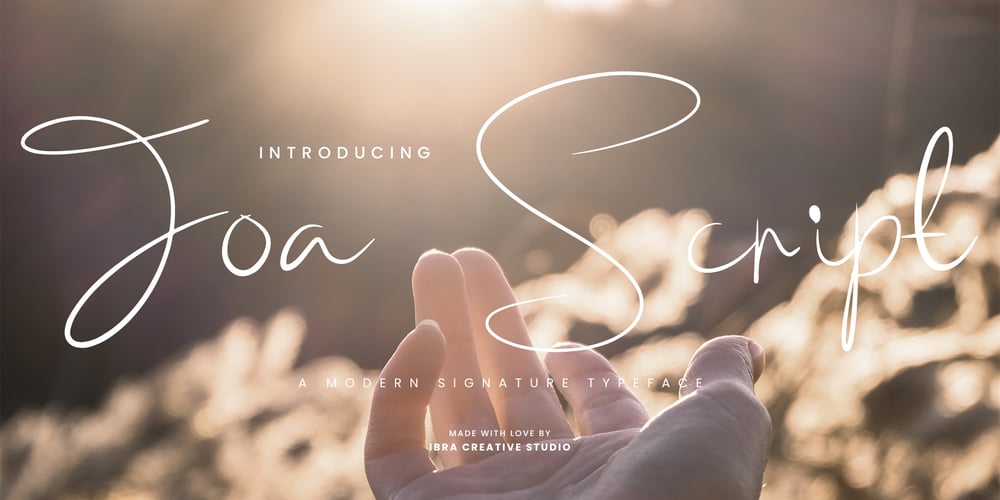
Joa Script Font Family was designed by Roisatul Azizah and published by IbraCreative. Joa Script contains 1 styles and family package options. Joa Script – A Modern Signature TypefaceJoa Script, a contemporary and elegant modern signature typeface, effortlessly captures the essence of sophistication and personal flair. With its fluid and dynamic strokes, Joa Script exudes a sense of grace and individuality, making it the perfect choice for those seeking a signature-style font that resonates with a modern aesthetic. The letters seamlessly flow into one another, creating a harmonious and visually appealing script that adds a touch of refinement to any design. Joa Script’s versatility shines through in various applications, from branding and logos to invitations and social media graphics, providing a timeless and distinctive character that embodies both style and professionalism.Joa Script is perfect for branding projects, logo, wedding designs, social media posts, advertisements, product packaging, product designs, label, photography, watermark, invitation, stationery, game, fashion and any projects.Fonts include multilingual support for; Afrikaans, Albanian, Czech, Danish, Dutch, English, Estonian, Finnish, French, German, Hungarian, Italian, Latvian, Lithuanian, Norwegian, Polish, Portuguese, Slovak, Slovenian, Spanish, Swedish.